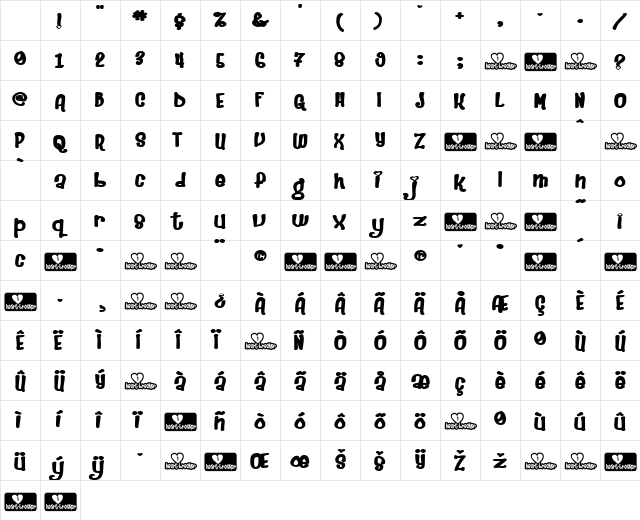
Complete Heartbreaker Heavy glyph index. Displaying only characters natively supported by Heartbreaker Heavy font.
Heartbreaker is a composed and adaptable typeface that performs quietly and consistently across a wide range of design contexts.